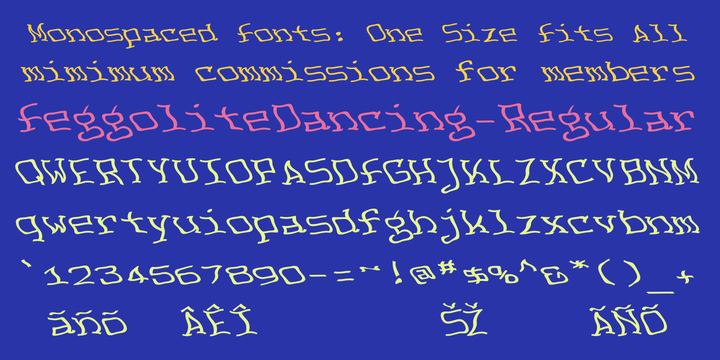
FeggoliteDancing has monospaced, wobbly letters. It is a variation of FeggoliteMono.
For other fonts that have the same tipsy look, see NoPain and Seasick.